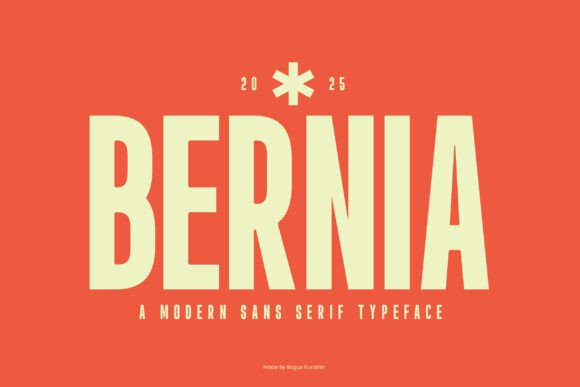
I still remember the frustration of working on a project, hours spent crafting the perfect design, only to realize that the font I chose just wasn’t cutting it. The client wanted something modern, elegant, and bold, but the fonts I had were either too bland or too over-the-top. That’s when I stumbled upon Bernia, a Sans Serif Font that would change the game for me and my design endeavors.
Introducing Bernia: The Embodiment of Modern Elegance
Bernia is more than just a font; it’s an experience. With its bold fluidity and dynamism, it transforms any design into an awe-inspiring masterpiece. This lean typographical marvel thrives in compact spaces, making potent impressions. Whether in greeting cards, packaging, brand persona, or on a poster, Bernia seamlessly blends visual appeal with contemporary chic.
My Honest Review of Bernia
- ✨ Modern and elegant design: Bernia’s sleek lines and curves make it perfect for designs that require a touch of sophistication.
- ✅ Versatility: From digital platforms to print materials, Bernia adapts effortlessly to any medium.
- 💡 Instant impact: Its bold fluidity grabs attention and makes a lasting impression.
- 👍 Easy to read: Despite its boldness, Bernia remains clear and legible, even in smaller sizes.
While Bernia is an exceptional font, there are a few things to keep in mind:
- ⚠️ Overuse: Like any bold font, Bernia can be overwhelming if overused. Balance is key.
- 🤔 Pairing with other fonts: Bernia’s strong personality means it can be challenging to pair with other fonts. Choose complementary fonts carefully.
The Backstory of Bernia
Bernia was inspired by the works of renowned typographers who sought to create a font that embodied modern elegance. The designer behind Bernia aimed to craft a font that would be both bold and refined, with a unique fluidity that sets it apart from other Sans Serif Fonts. While the exact story behind Bernia’s creation may be shrouded in mystery, its impact on the design world is undeniable.
Q: What makes Bernia unique?
A: Bernia’s bold fluidity and dynamism make it stand out from other Sans Serif Fonts. Its lean design and modern elegance make it perfect for a wide range of design applications.
Q: Is Bernia suitable for digital interfaces?
A: Absolutely! Bernia’s clean design and legibility make it an excellent choice for digital interfaces, including websites, apps, and UI/UX designs.
Q: Can I use Bernia in print materials?
A: Yes, Bernia is perfect for print materials, including greeting cards, packaging, posters, and more. Its bold fluidity and elegance make it a great addition to any print design.